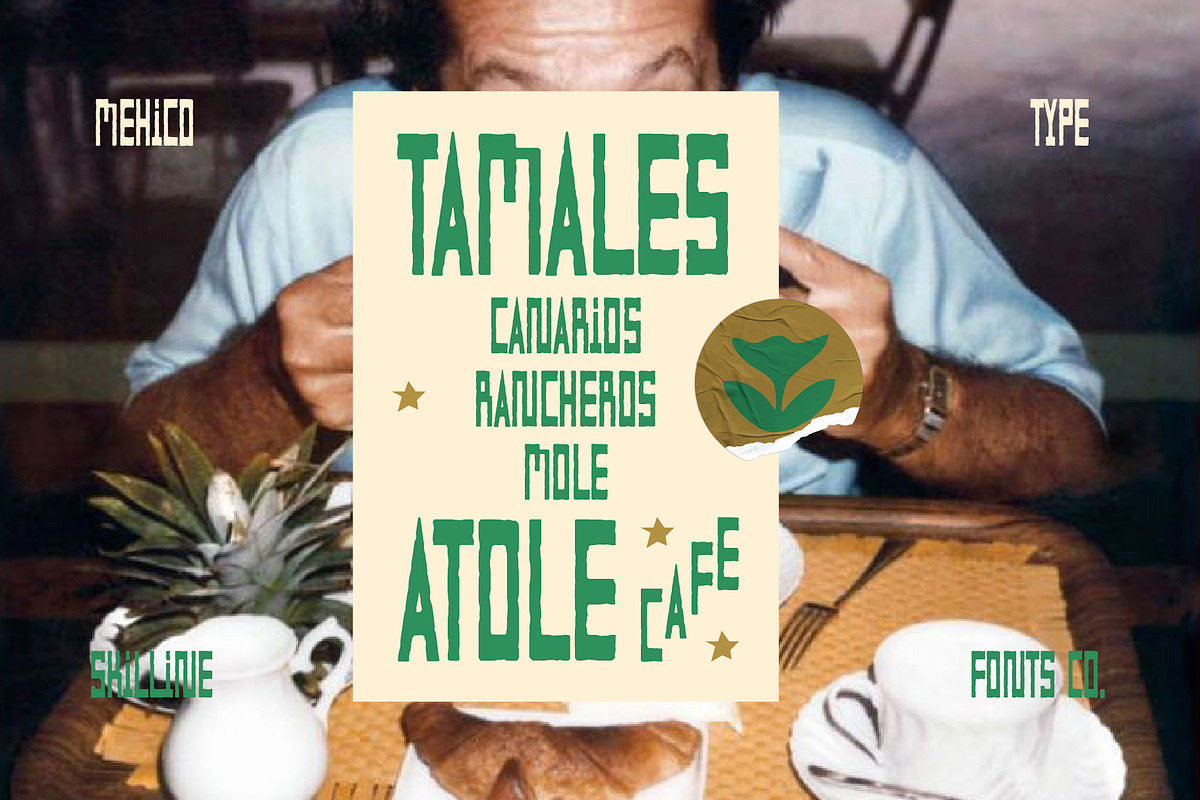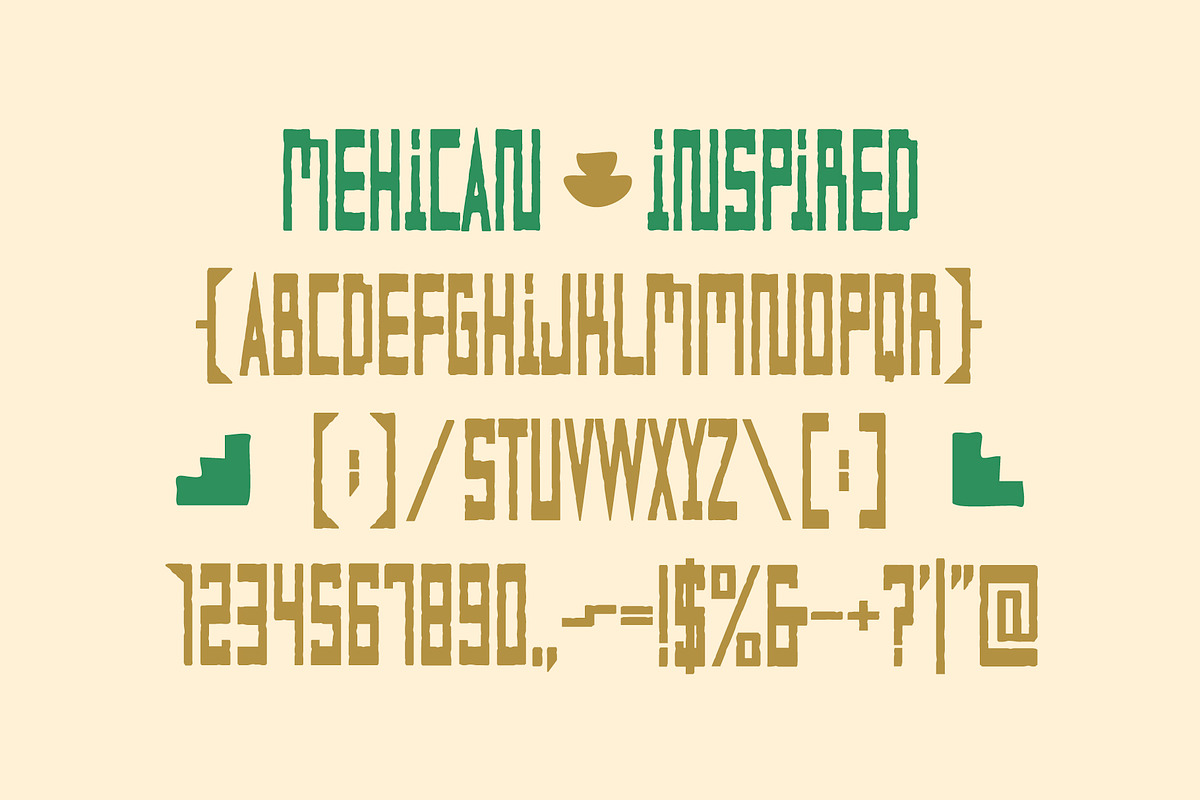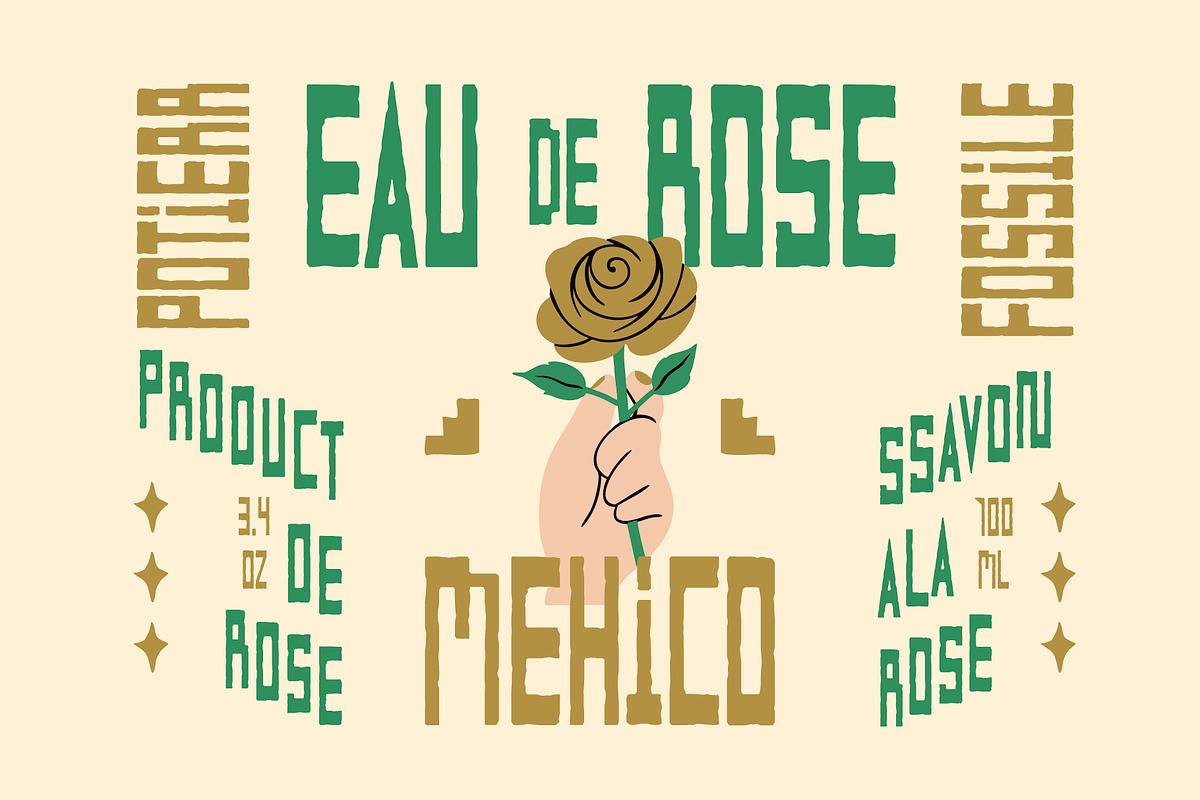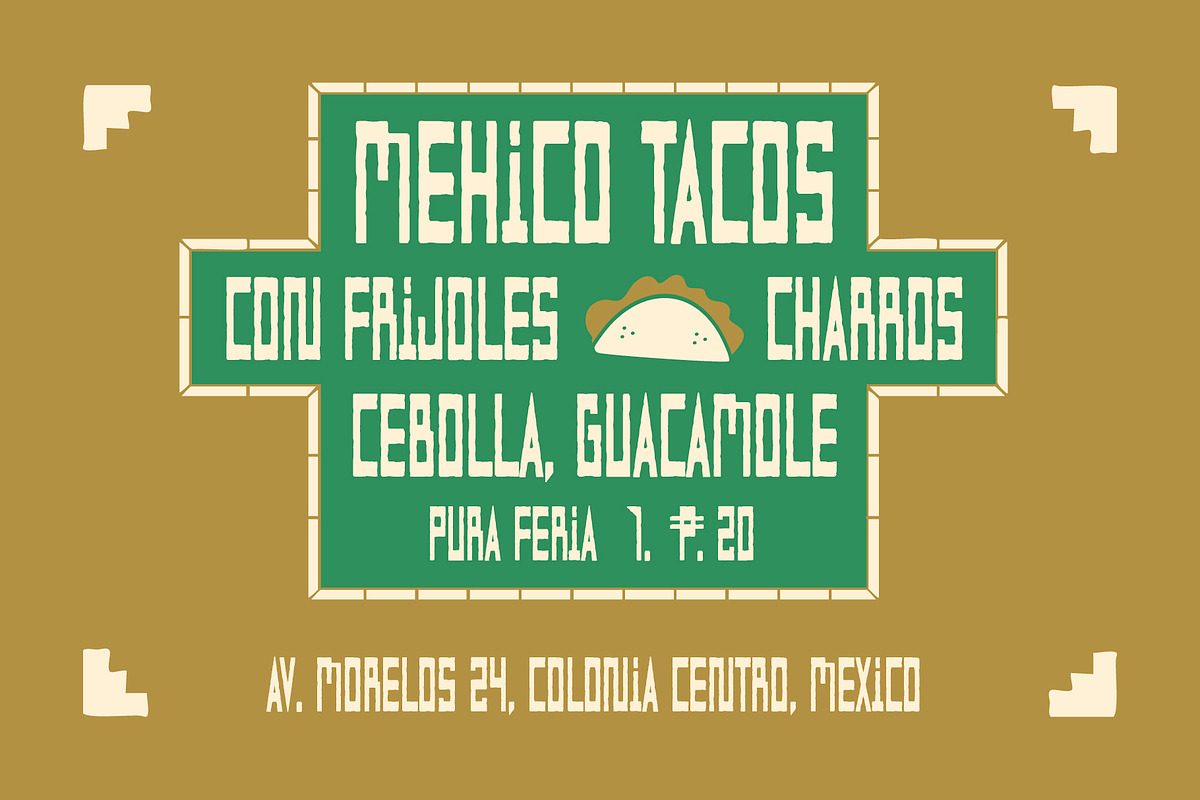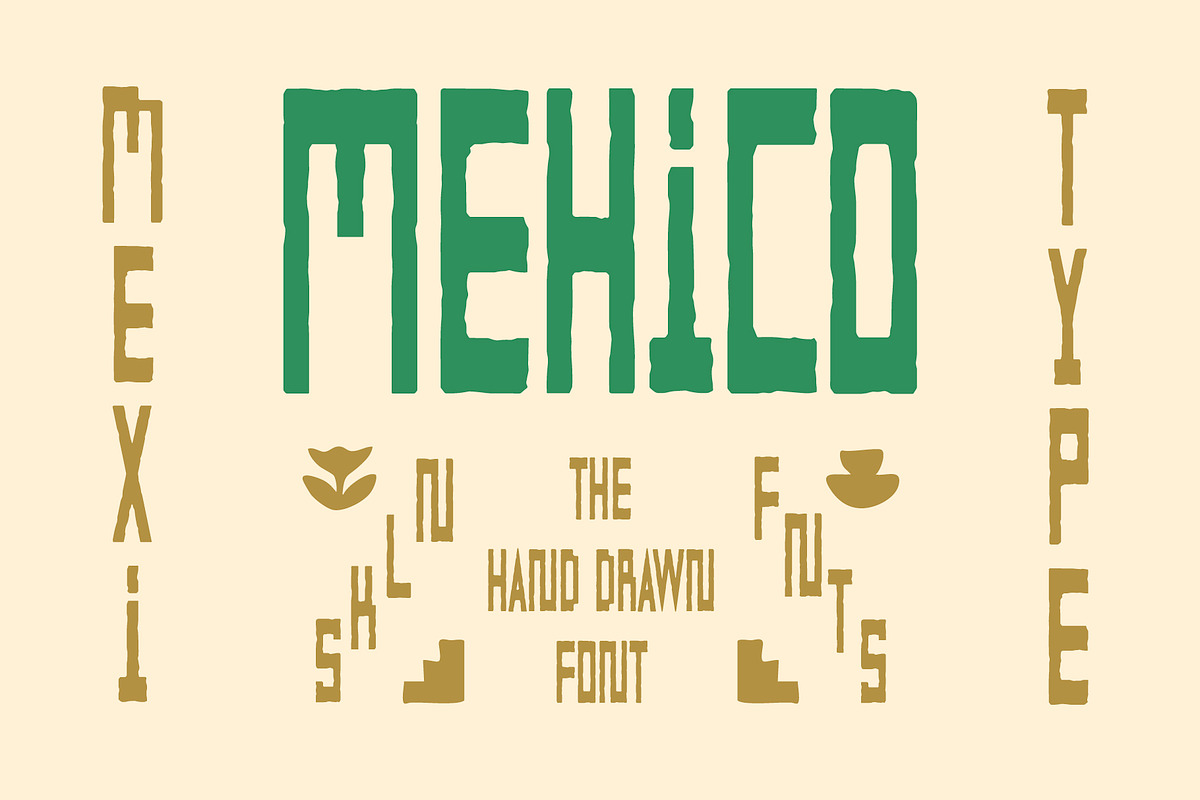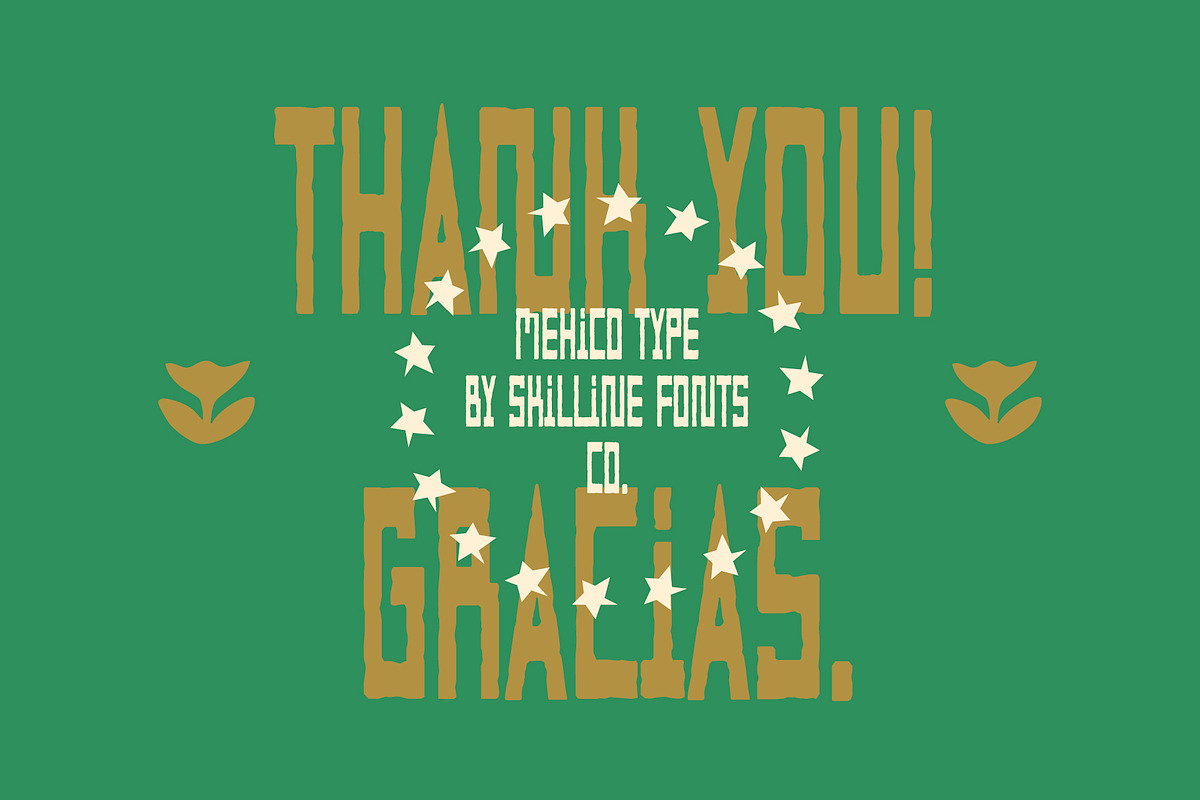
SFC Mehico
Mehico Typeface is a bold hand-drawn display font inspired by the vibrant textures of Mexican folk art, traditional hand-painted signs, and rustic craftsmanship. Its rough edges and organic shapes bring an authentic, handmade feel that celebrates imperfection and personality. Each letter is uniquely detailed, capturing the spirit of cultural heritage and creative freedom. Perfect for designers seeking a bold, earthy font with handcrafted energy, Mehico blends cultural character with artistic versatility.
Whether for branding, posters, apparel, or packaging, this typeface injects warmth, rhythm, and individuality into every project. Its distinct aesthetic feels both vintage and timeless, expressive enough for headlines yet balanced for design harmony. Crafted to evoke a sense of adventure and artistry, Mehico thrives in creative compositions that celebrate authenticity. It’s not just a font, it’s a tribute to the beauty of imperfection, bringing human touch and cultural storytelling into modern design.
Ideal Applications for Mehico Typeface
- Cultural and heritage-inspired branding
- Vintage posters and editorial titles
- Apparel and merchandise with hand-drawn flair
- Coffee, restaurant, and craft packaging
- Folk art–inspired logos and signage
- All Caps Typeface
- Hand-Drawn Letterforms
- Basic Numerals & Punctuation